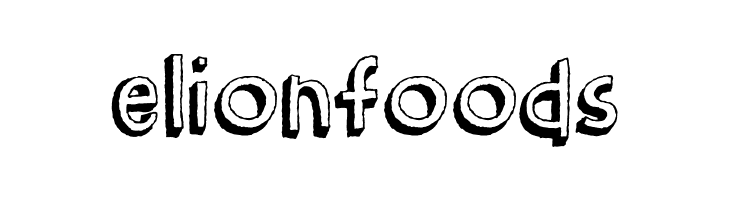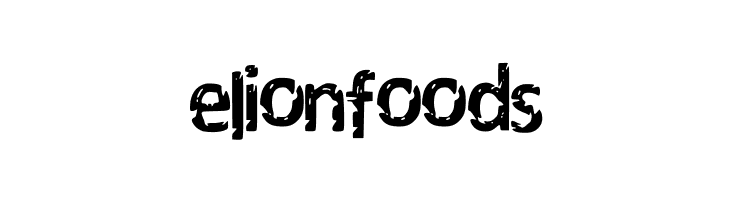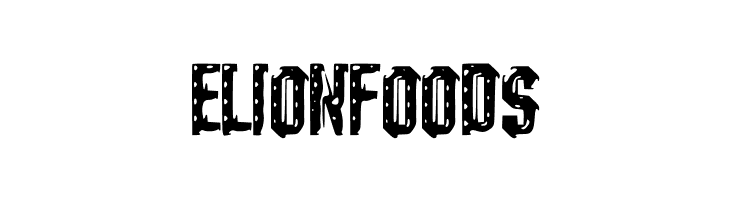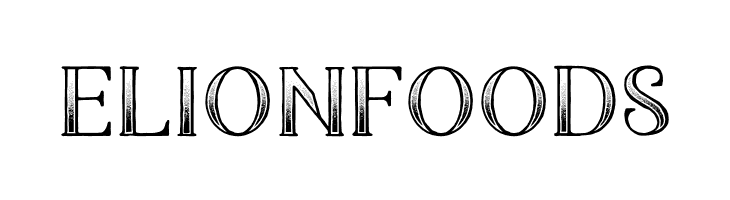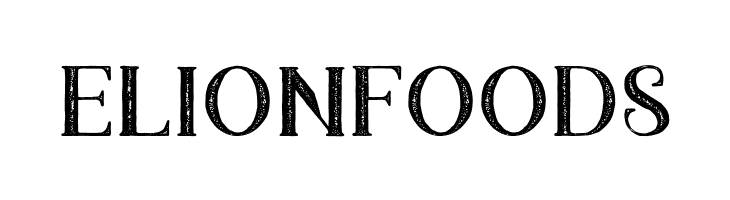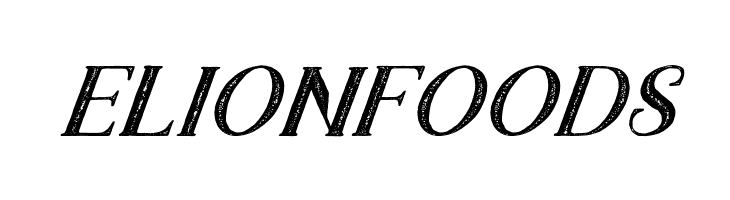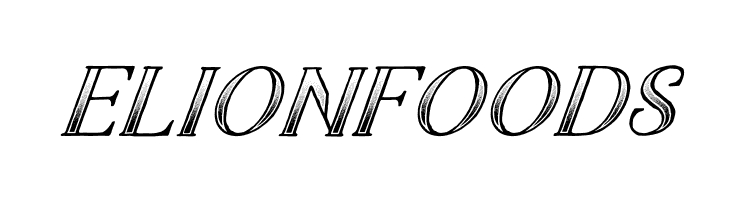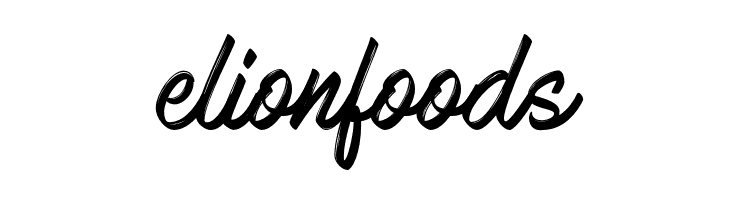
( Fonts by Pizzadude )
A playful, hand-drawn font with bold, uneven strokes.
( Fonts by DarkX ShadowX21 )
A bold, distressed font with a rugged, grungy texture.
( Fonts by DarkX ShadowX21 )
A bold, industrial font with a distressed, mechanical design.
( Fonts by madeDeduk )
A bold, decorative font with intricate line details and high contrast, perfect for vintage-themed projects.
( Fonts by madeDeduk )
A vintage, decorative font with a distressed texture and unique serifs.
( Fonts by madeDeduk )
A vintage, italicized decorative font with bold, slanted characters and intricate detailing.
( Fonts by madeDeduk )
A bold, italic font with outlined characters and a dynamic style.
( Fonts by madeDeduk )
A bold, italic font with a textured, sketch-like appearance and strong decorative elements.
A bold, cursive script font with dynamic and expressive strokes.